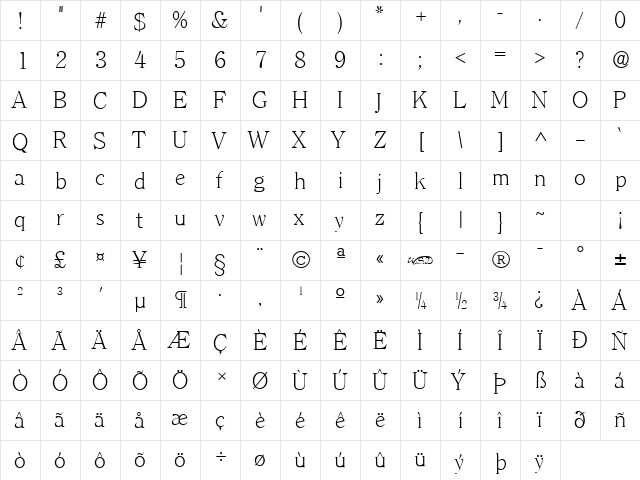
ClearlyRomanLight normal
Design Context for ClearlyRomanLight Typeface
ClearlyRomanLight offers clean, dependable letterforms without strong stylistic allegiance, making it a practical choice for designers who need flexibility. The delicate stroke weight brings airiness and refinement to layouts.